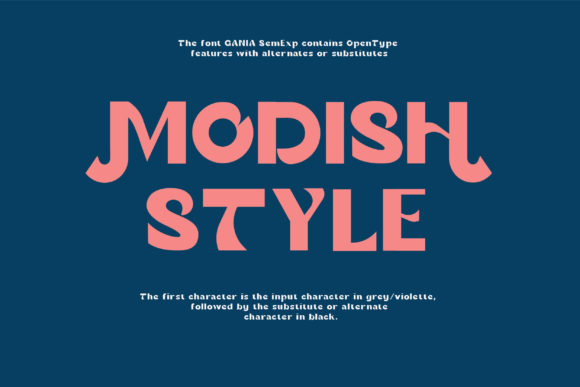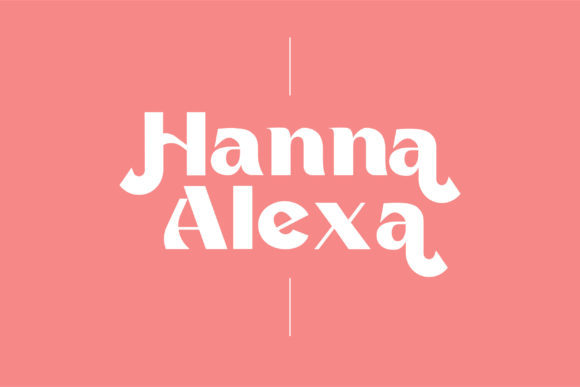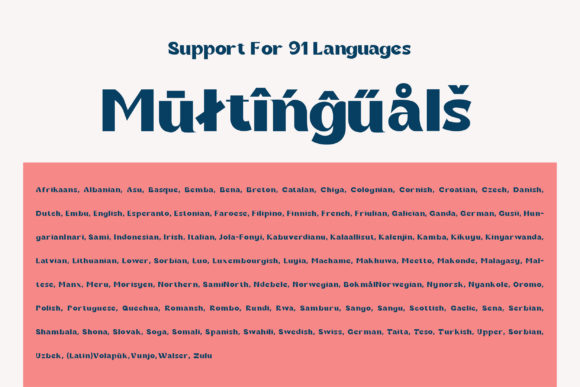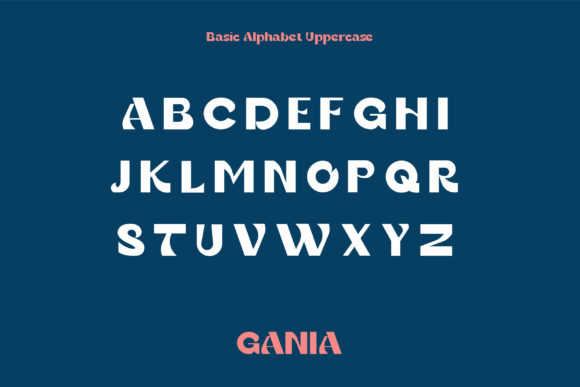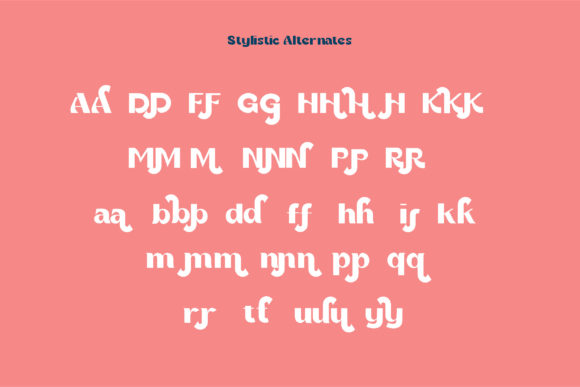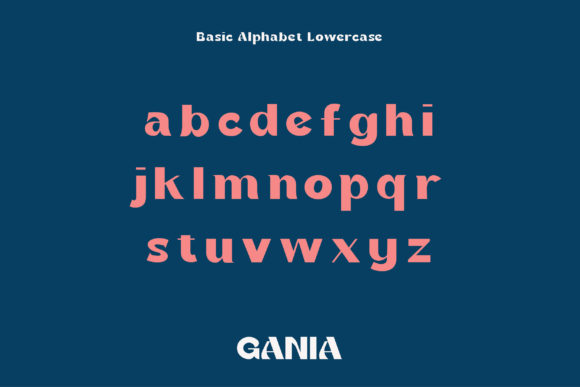
The Quest for the Perfect Font: How Gania Display Stole My Heart
I’ll never forget the frustration of working on a design project, hours spent scrolling through font libraries, and still, nothing seemed quite right. My client wanted something elegant, yet modern; stylish, yet not too flashy. I was on the verge of giving up when I stumbled upon Gania Display. It was love at first sight! 💕 This beautiful typeface has been a game-changer for my designs, and I’m excited to share its awesomeness with you.
An Honest Review of Gania Display
- ✨ Unique and stylish: Gania Display is a perfect blend of modern and vintage curves, making it stand out from the crowd.
- ✅ Elegant and versatile: This font is perfect for creating beautiful and glamorous designs, from luxury branding to wedding invitations.
- 💻 PUA encoded: Easy access to all glyphs and swashes, making it a breeze to customize your designs.
- 🤔 Limited use cases: While Gania Display is amazing for headlines and titles, it might not be the best choice for body text or long paragraphs.
The Backstory of Gania Display
Gania Display was created by a talented designer who wanted to craft a font that would make designs stand out. Inspired by vintage typography and modern design trends, Gania Display was born. 💡
| Font Name | Gania Font |
| Author | yukitacreative |
Q: What is Gania Display?
A: Gania Display is a stylish and elegant display font, perfect for creating eye-catching designs.
Q: Is Gania Display PUA encoded?
A: Yes, Gania Display is PUA encoded, making it easy to access all glyphs and swashes.